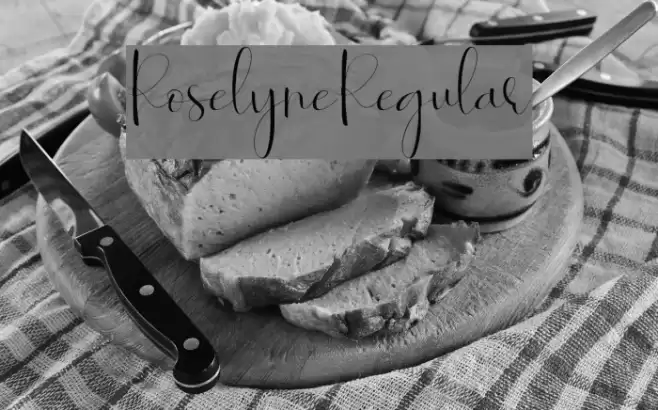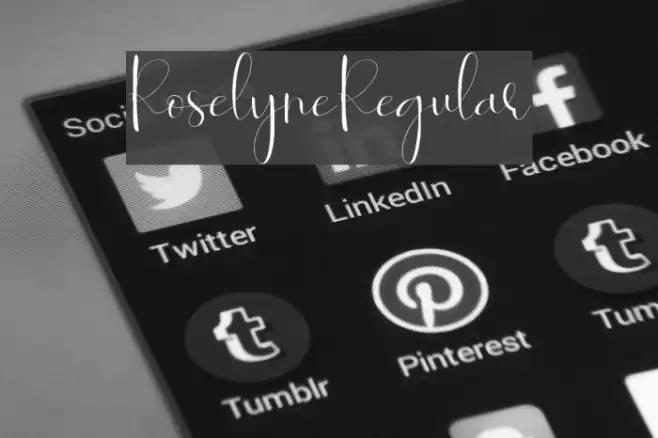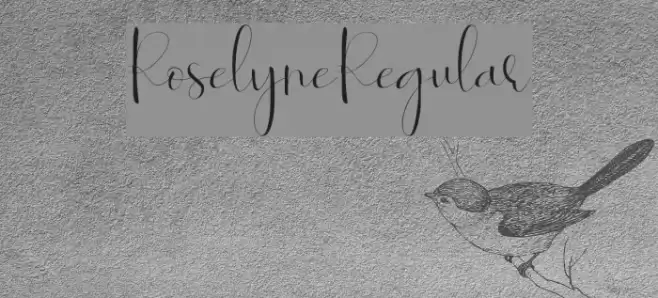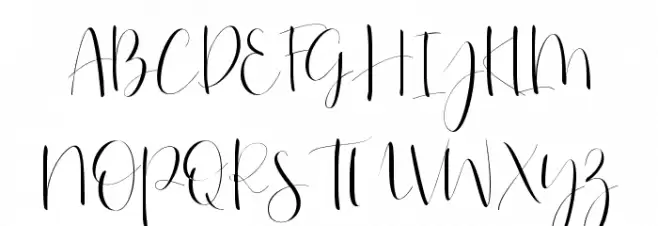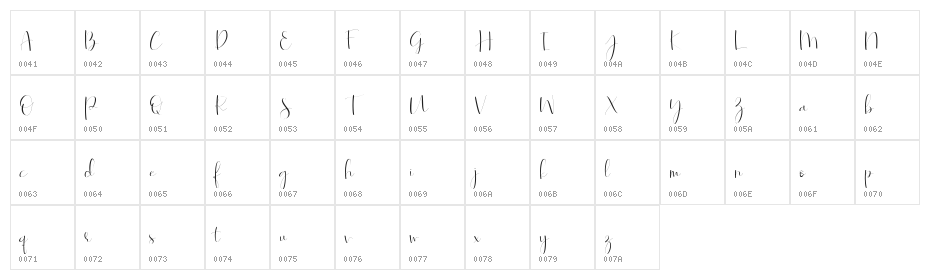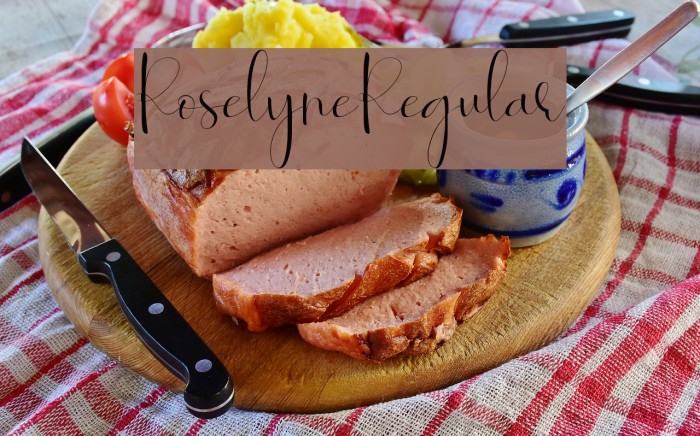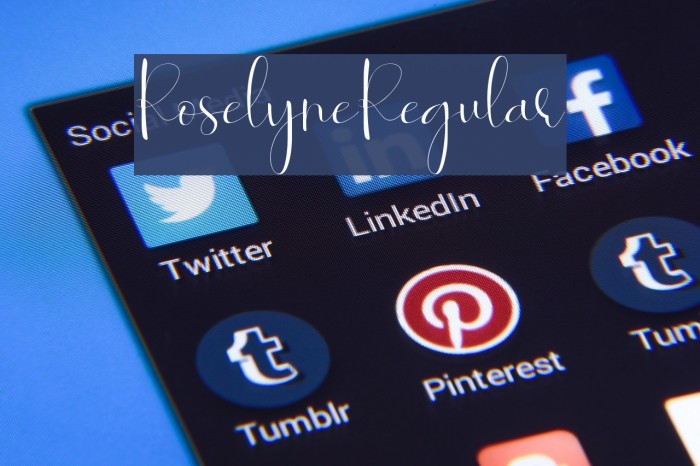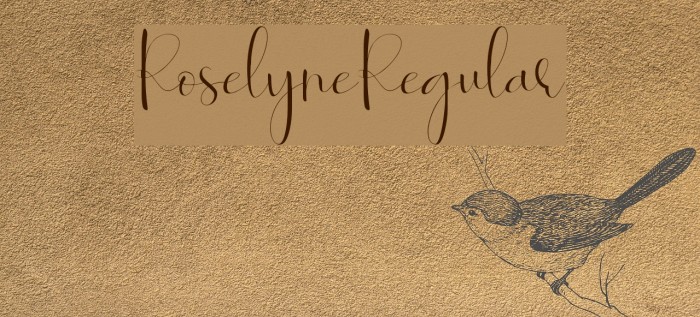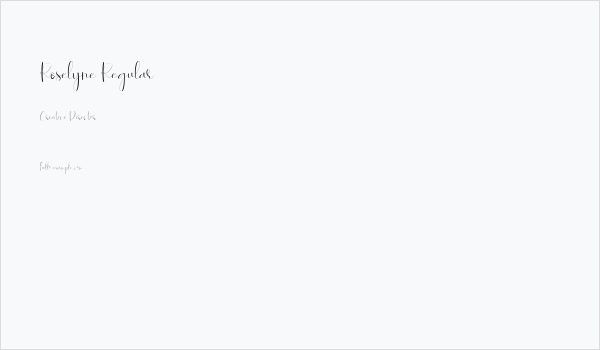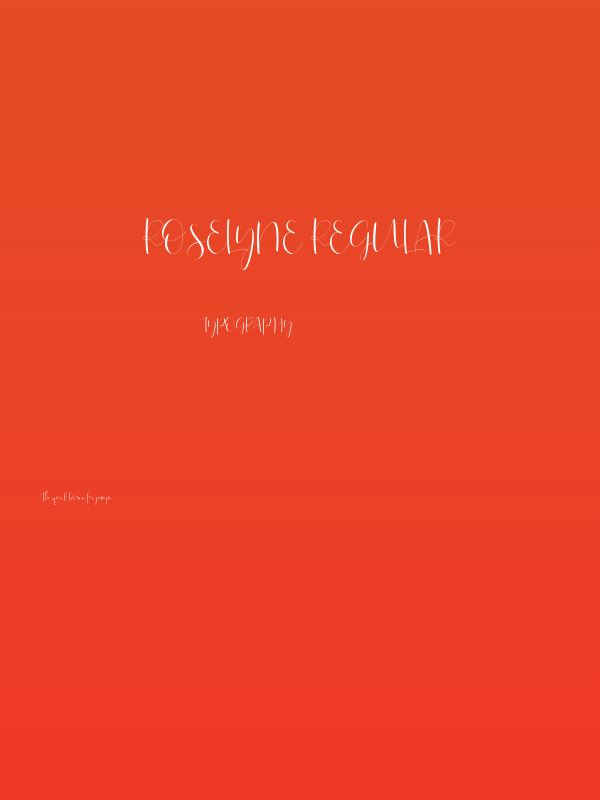
Roselyne-Regular Font
Roselyne-Regular Description
This elegant script font features a flowing, cursive style with delicate, elongated strokes and a graceful, handwritten appearance. The letters are intricately connected, creating a seamless and fluid look. The uppercase characters are bold and expressive, while the lowercase letters maintain a consistent, elegant flow. The font's design incorporates a high contrast between thick and thin lines, adding to its sophisticated and artistic appeal. It is well-suited for projects that require a touch of elegance and refinement, such as wedding invitations, branding, and high-end product packaging.
An elegant script font with flowing, cursive strokes and high contrast from Uncategorized fonts.
- Proposed Projects: Ideal for wedding invitations, branding, and luxury product packaging.
- Overall Style: Elegant
- Use Case: Logos, Invitations, Branding